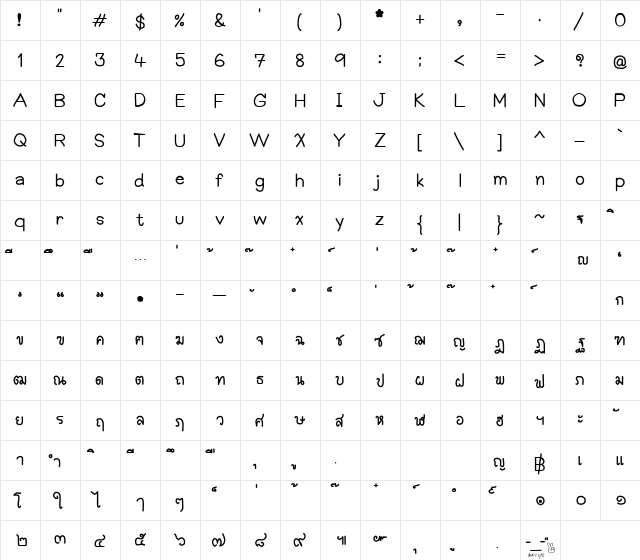
Bluemoon_SemesterOpen Regular
| Foundry | Bluemoon |
| Designer | Bluemoon |
Design Context for Bluemoon_SemesterOpen Typeface
Bluemoon_SemesterOpen takes a measured approach to typography — its balanced proportions and neutral character make it a reliable workhorse for both digital and print work.